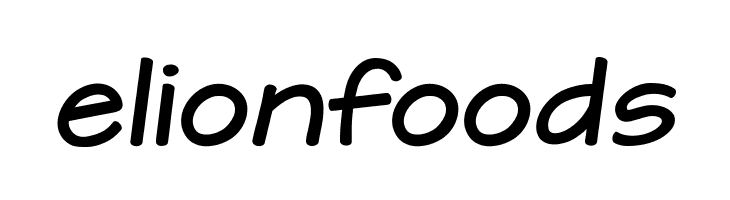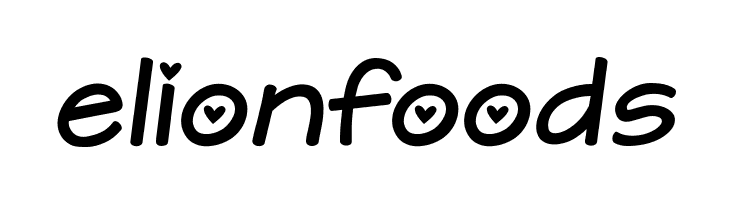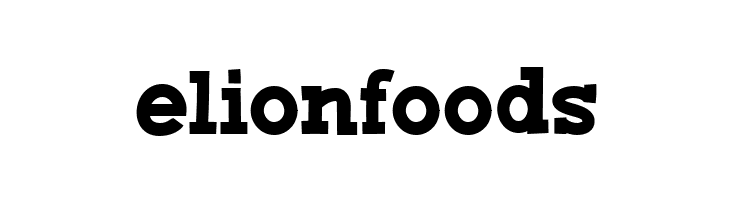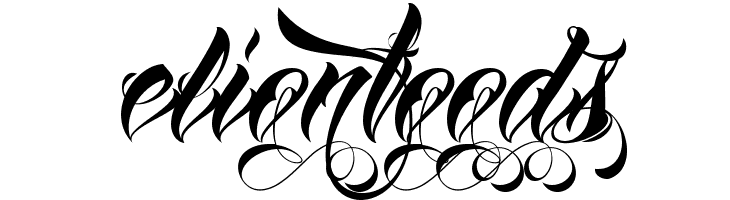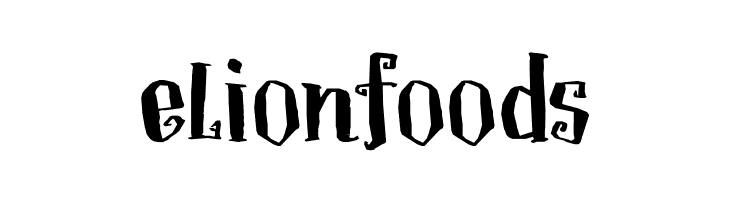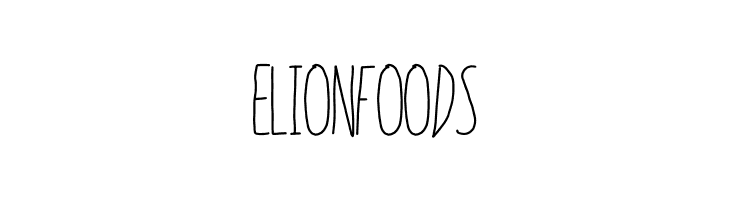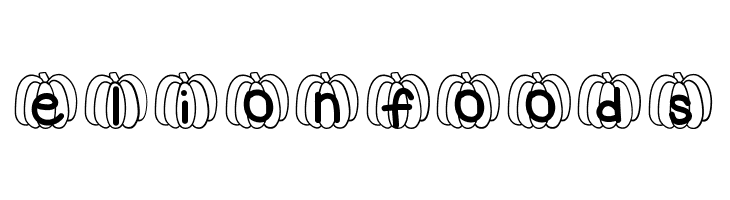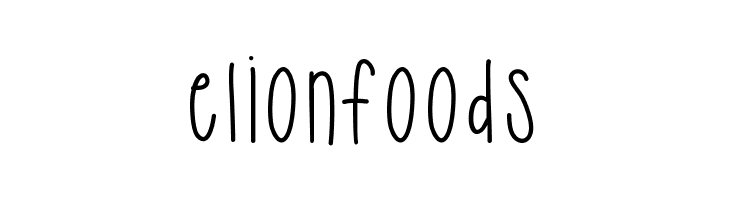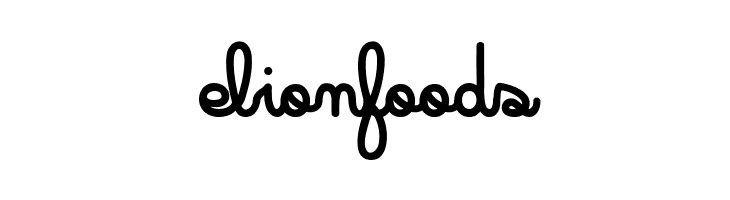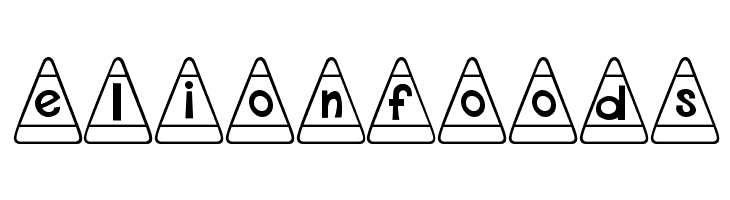
A spooky, playful font with jagged edges and a Halloween theme.
A bold, dripping font with a horror-themed aesthetic, perfect for Halloween designs.
A playful, handwritten font with bold, irregular strokes and a casual feel.
A bold, robust font with thick strokes and a strong presence.
A cursive, handwritten font with elegant, flowing strokes.
A modern-vintage font with tall, narrow letterforms and distinct curves.
A bold, angular font with a modern and edgy style.
A bold, distressed font with a rugged, grunge-like appearance.
A whimsical, Halloween-themed font with jagged, hand-drawn characters.
A whimsical, hand-drawn font with tall, narrow characters.
A playful, casual handwritten font with smooth, rounded lines.
A geometric, fragmented font with a bold, angular design.
A playful, dot-based decorative font with a pixelated, retro digital style.
A modern, geometric font with rounded edges and a bold, uniform appearance.
A bold, artistic font with sharp angles and a modern flair.
A bold, brush-stroke font with a rugged, hand-drawn appearance.
A playful, modern font with rounded, slightly condensed characters and unique curves.
A bold, rounded font with a futuristic and modern style.
A playful font with characters encased in pumpkin outlines, perfect for festive themes.
A playful, hand-drawn font with tall, narrow characters and a whimsical style.
A playful, handwritten font with rounded edges and a whimsical style.
A playful font with characters inside candy corn shapes, ideal for festive designs.
A bold, artistic font with dramatic strokes and intricate details.
A dynamic and elegant script font with fluid, cursive strokes.